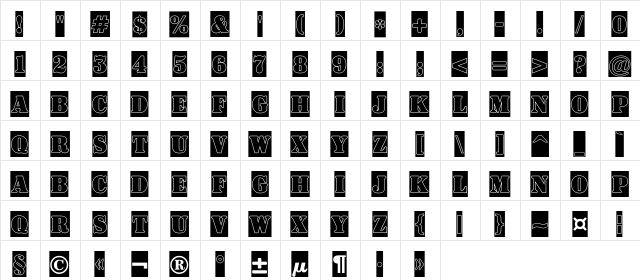
a_SignboardTitulCmGr Regular
Design Context for a_SignboardTitulCmGr Typeface
a_SignboardTitulCmGr takes a measured approach to typography — its balanced proportions and neutral character make it a reliable workhorse for both digital and print work.